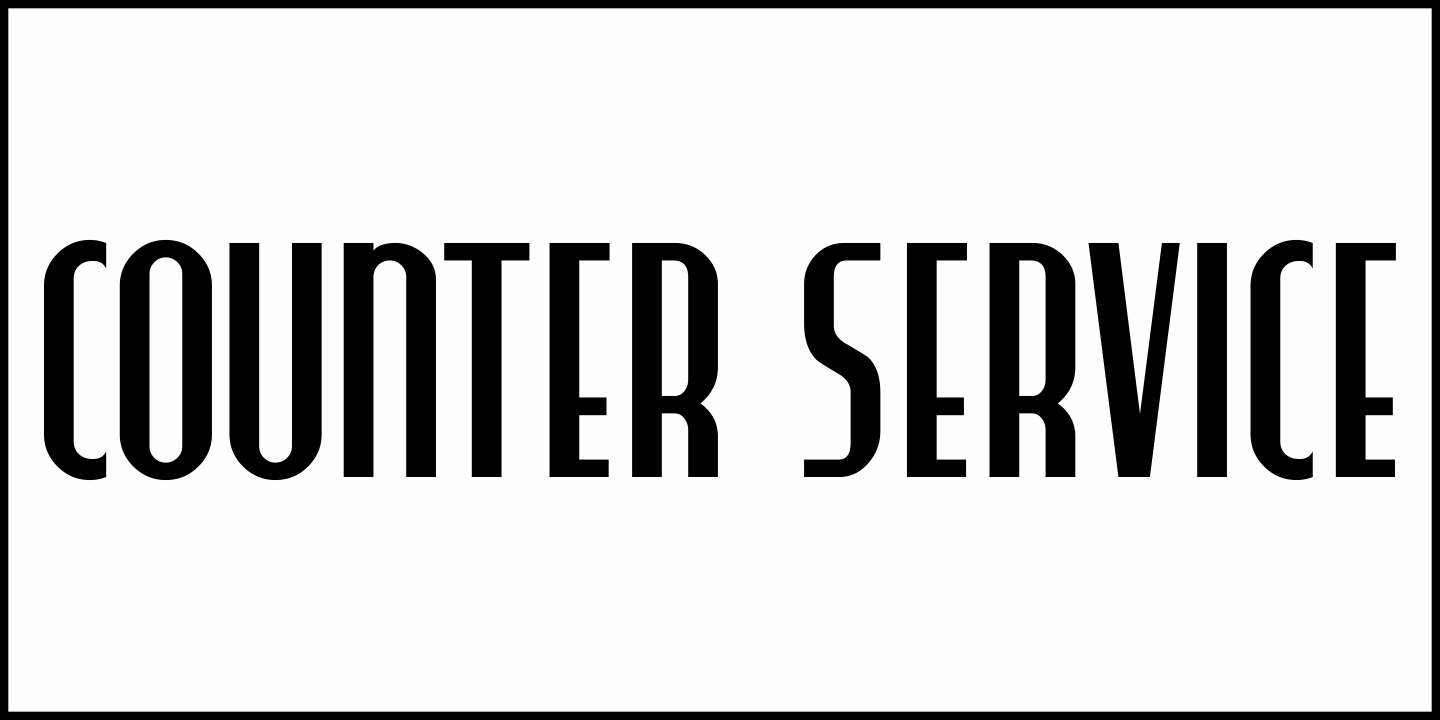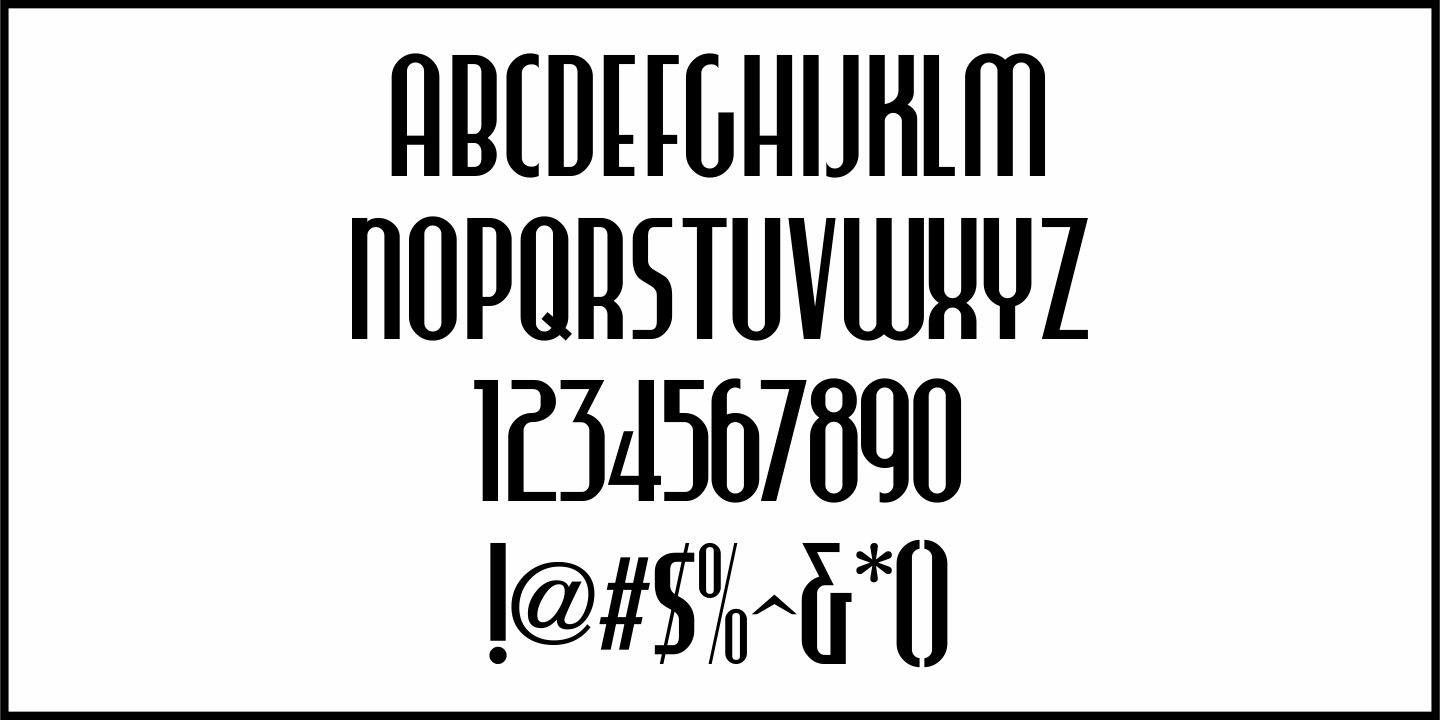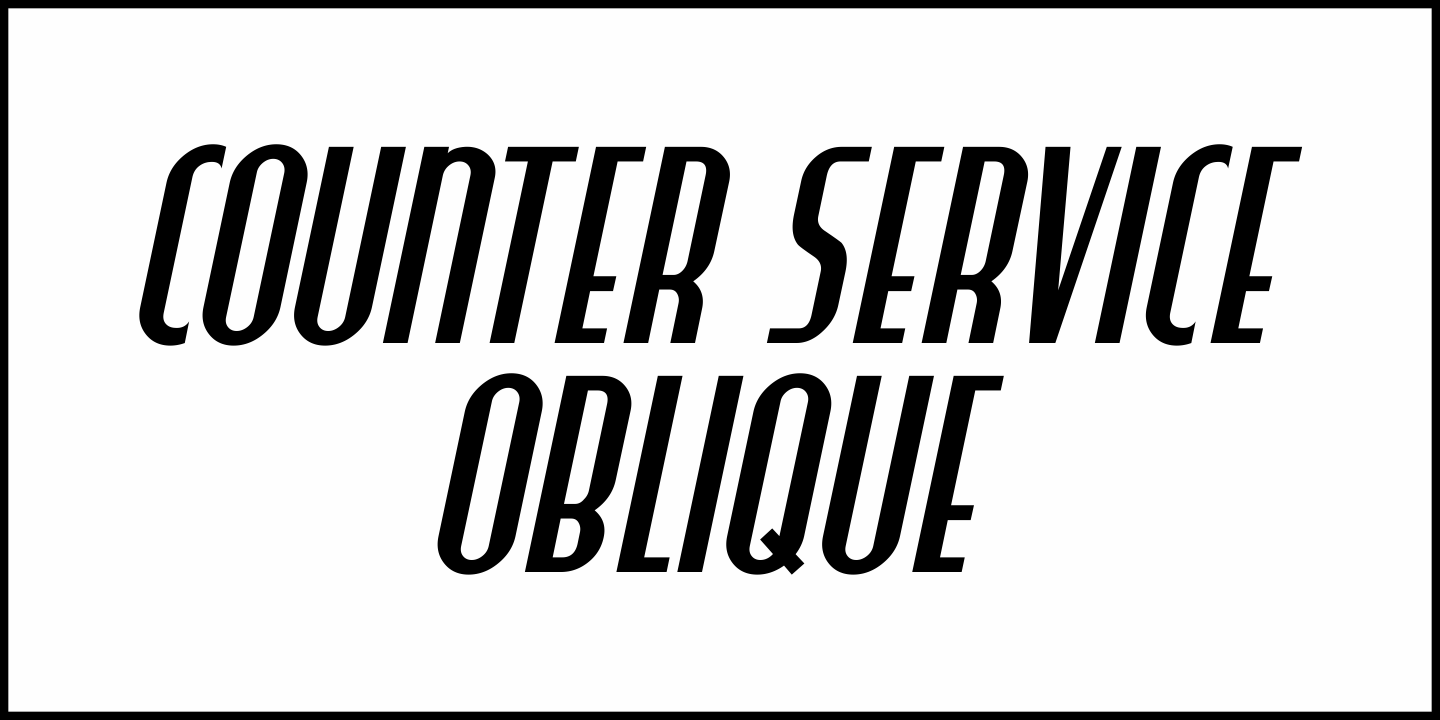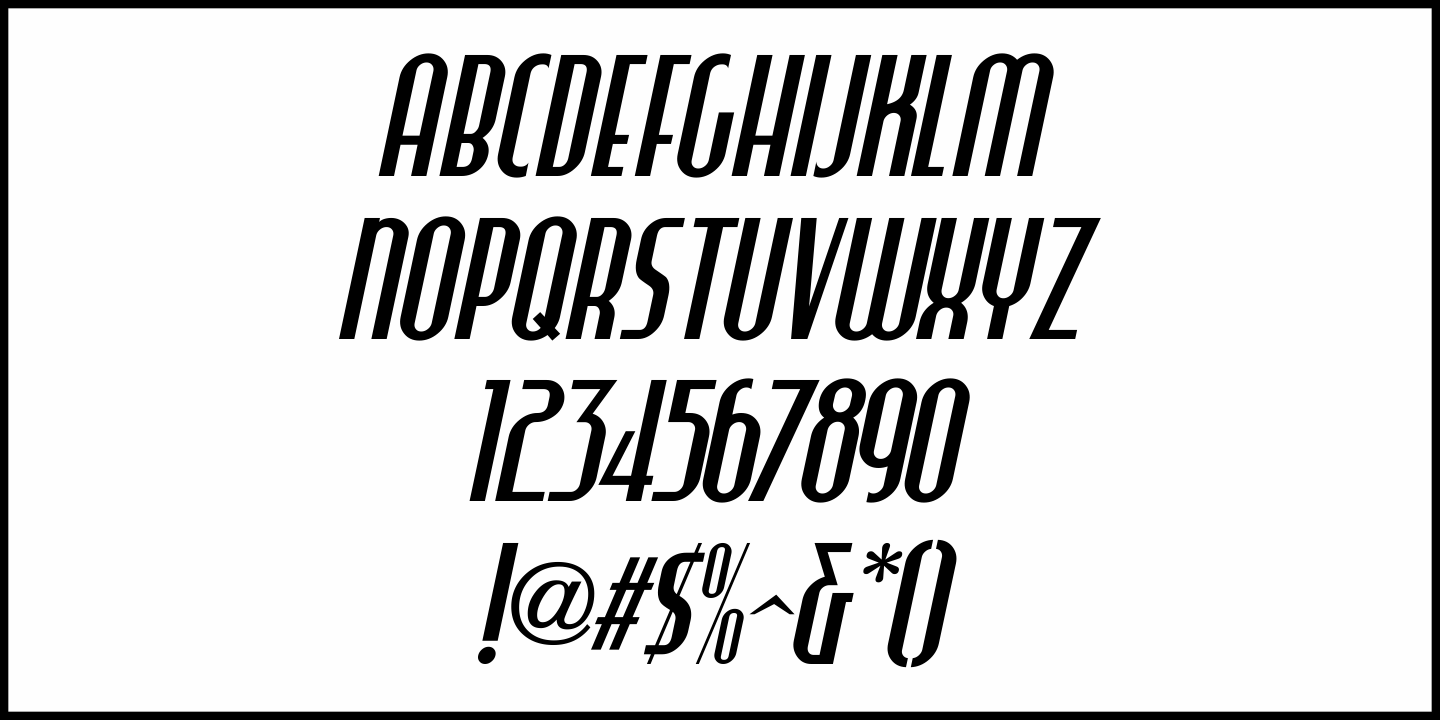
Counter Service
The hand lettered name “Chickland” from a 1958 restaurant menu cover was actually a throwback to the Art Deco style with its condensed thick and thin sans serif design.
With just a few available letters to work with, it has been turned into Counter Service JNL; available in both regular and oblique versions.